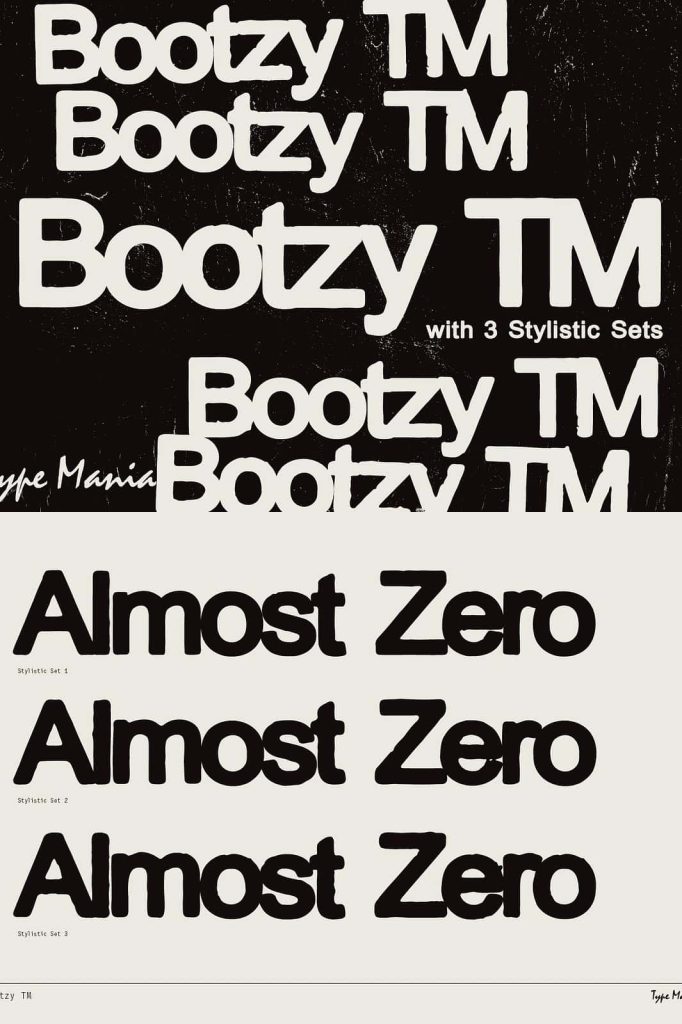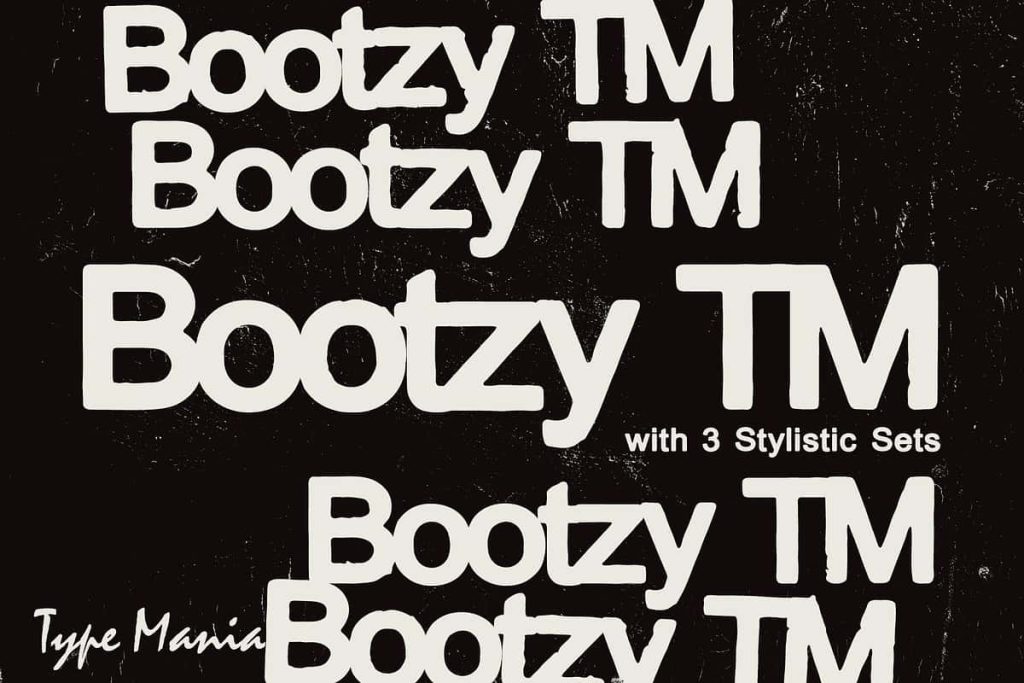
Bootzy Sans Serif Font – Bold, Tough, and Built for Impact
Bootzy is a tough sans serif font designed to command attention and energize your creative projects. Built with bold geometry and raw strength, Bootzy transforms ordinary layouts into striking visual statements. Whether you are creating flyers, album covers, t-shirt designs, or any kind of promotional artwork, this font ensures your message hits hard and stands out. Bootzy doesn’t whisper—it shouts style, attitude, and confidence.
A Modern Sans Serif with Grit and Personality
Bootzy Sans Serif captures the essence of urban edge and contemporary design. Its clean yet rugged form gives it versatility, allowing designers to use it across different creative industries. From streetwear branding to bold editorial titles, Bootzy provides the perfect balance between toughness and readability. Each letterform is crafted with precision and intention, bringing a raw but controlled energy that instantly draws the viewer’s eye.
Unlike traditional sans serif fonts that rely on uniformity, Bootzy introduces subtle variations that give each design a dynamic and textured look. Its commanding structure ensures visibility even in small sizes, while its strong visual rhythm gives every composition a sense of power and motion.
Three Stylistic Sets for Creative Freedom
One of Bootzy’s most powerful features lies in its three stylistic sets. These alternative letterforms allow you to customize the tone and rhythm of your text effortlessly. The stylistic sets introduce variation in glyph shapes, giving your design depth, movement, and texture. Whether you want a more mechanical, industrial appearance or a slightly distressed, handcrafted look, Bootzy adjusts to your vision.
The automatic glyph shuffling function adds an organic layer to your typography. When activated, Bootzy intelligently alternates between different glyphs as you type, producing a naturally varied texture that feels authentic and spontaneous. This feature is perfect for projects that demand a raw, energetic, and creative touch. Your words will never look repetitive or static—Bootzy makes them feel alive.
Perfect for Flyers, Album Covers, and T-Shirt Designs
Bootzy was designed with real-world application in mind. It thrives in flyer design, giving event promotions an unmistakable edge. Its bold strokes and distinctive letter shapes ensure that headlines and event titles grab attention instantly. In album cover artwork, Bootzy complements photography and illustration with its confident presence, reinforcing the tone of your music or brand.
For t-shirt graphics and merchandise, Bootzy brings that rugged, streetwise aesthetic that resonates with contemporary audiences. Its commanding forms and variable textures make it ideal for designs that want to express individuality and strength. Bootzy’s boldness translates perfectly to screen printing, embroidery, and digital artwork, maintaining clarity and intensity across mediums.
Why Choose Bootzy for Your Next Design Project
- Bold Impact: Designed to make your titles and visuals stand out effortlessly.
- Versatile Style: Works across print, apparel, digital, and branding designs.
- Three Stylistic Sets: Customize letterforms for creative flexibility and unique outcomes.
- Automatic Glyph Shuffling: Adds texture and personality to every line of text.
- Professional and Playful: Perfect for brands that blend modern grit with visual charm.
Bring Energy and Attitude to Your Typography
Bootzy isn’t just another sans serif—it’s a font with attitude. Its structure reflects the energy of modern visual culture: confident, raw, and expressive. With its built-in stylistic options, you can easily adapt Bootzy to fit a variety of aesthetics, from minimalist streetwear branding to bold digital campaigns. Every letter brings rhythm and emotion, helping your words become part of a memorable visual experience.
Bootzy Sans Serif Font redefines what it means to design with strength and style. Its combination of geometric precision, stylistic flexibility, and automated glyph variation makes it a must-have tool for modern creatives. If you want your typography to stand out with character and intensity, Bootzy delivers the perfect balance between toughness and visual sophistication. Use Bootzy to elevate your next flyer, album cover, or t-shirt design—and let your words speak louder than ever.